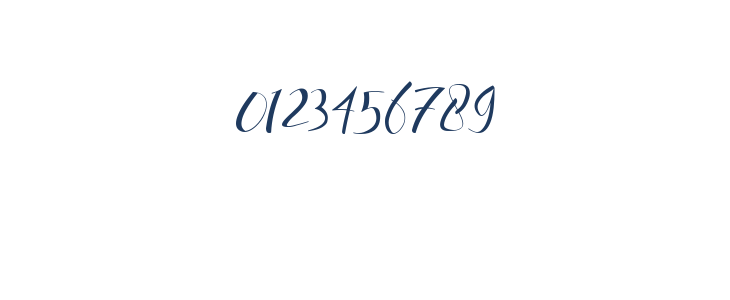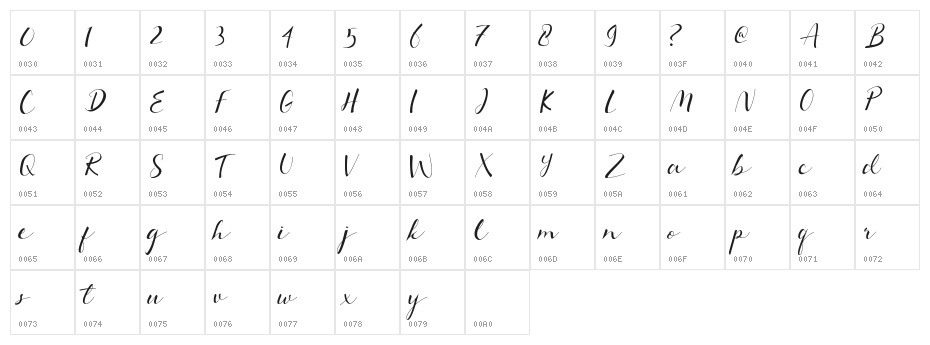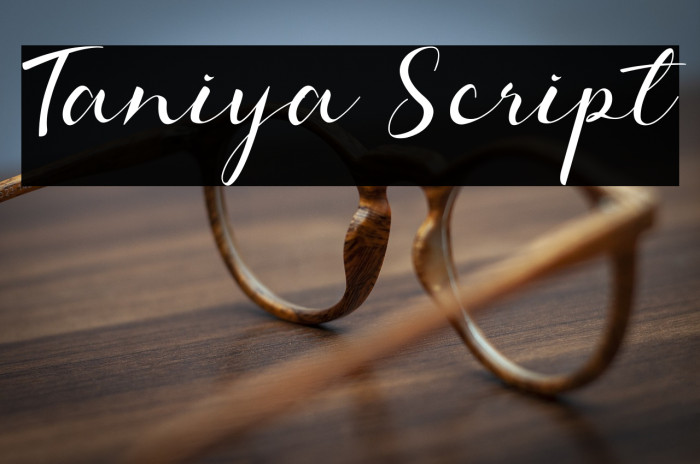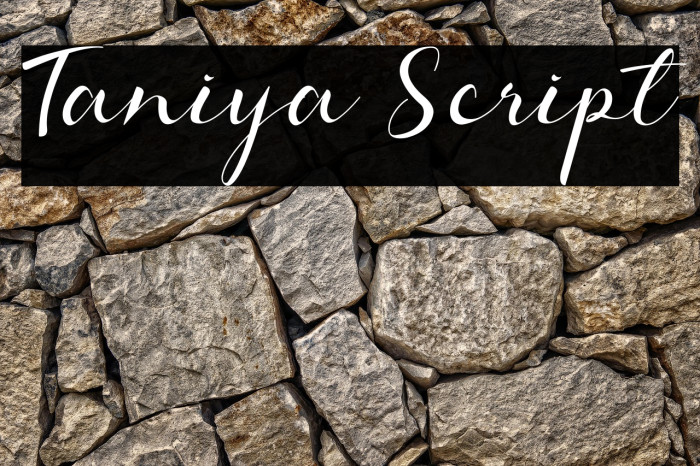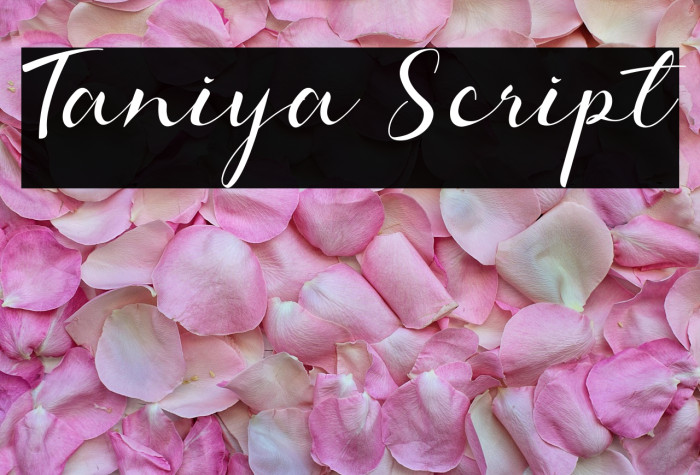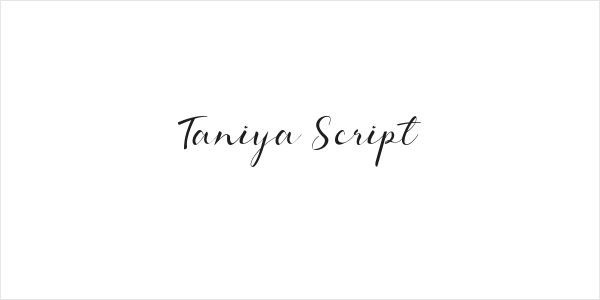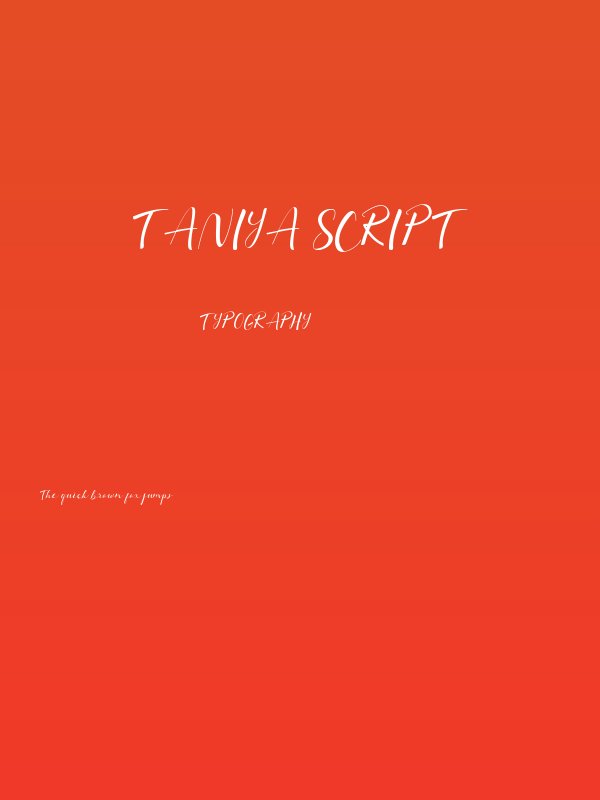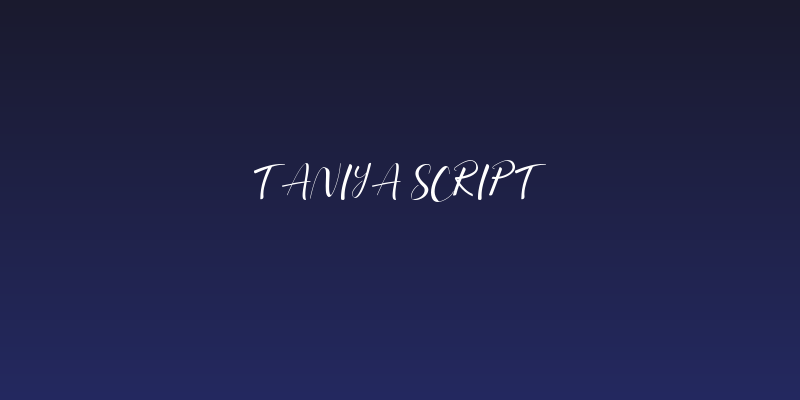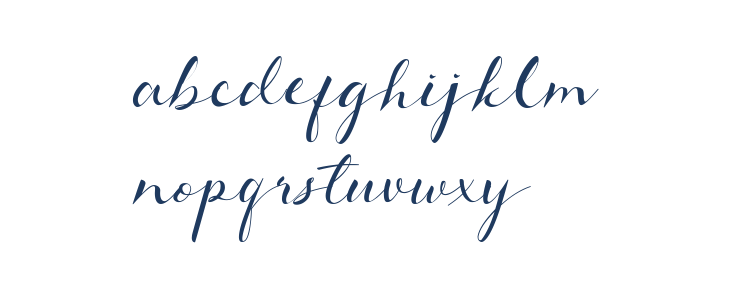
Taniya Script Font
Taniya Script Description
This elegant script font features fluid, connected strokes that mimic the natural flow of handwriting. The uppercase letters are tall and graceful, with sweeping curves and a slight slant, while the lowercase letters maintain a consistent rhythm and smooth transitions. The numerals are stylishly integrated, matching the overall aesthetic with their curvaceous forms. Special characters are thoughtfully designed to complement the script's sophisticated appearance. This font exudes a sense of elegance and refinement, making it ideal for projects that require a touch of class and personality.
| Proposed Projects | Wedding invitations, elegant branding, personal stationery, and decorative quotes. |